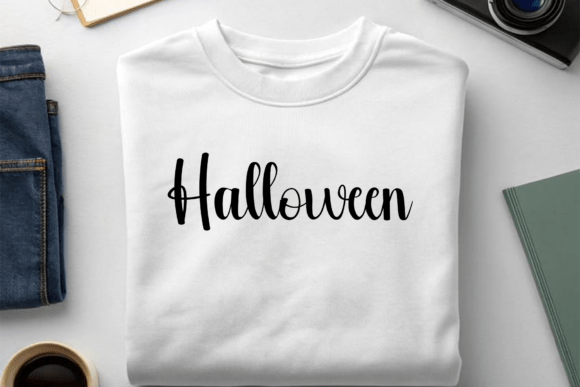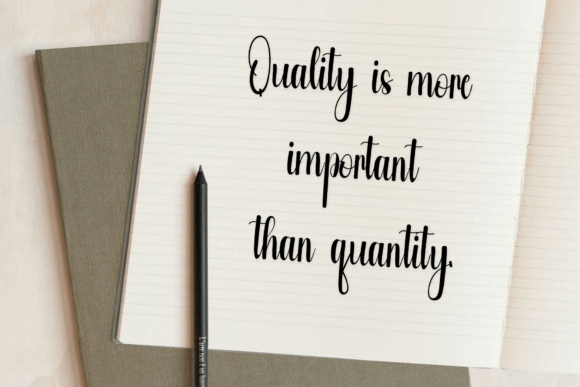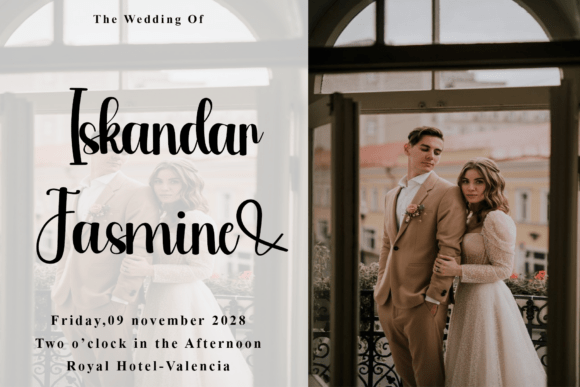
Get Ready to Deck the Halls with the Perfect Holiday Typeface
It’s that time of the year when creativity knows no bounds, and the world of design comes alive with festive magic. As you brainstorm ideas for your holiday marketing campaigns, you find yourself searching for the perfect typeface to convey the warmth and joy of the season. And then, it hits you – the Christmas Outside Font, a sophisticated and modern handwritten script that exudes elegance and sophistication.
This beautiful font is more than just a pretty face; it’s a powerful tool that can elevate your designs and make them stand out in a crowded market. With its fluid strokes and natural rhythmic flow, the Christmas Outside Font is a unique and professional choice for high-end holiday marketing, perfect for designers looking to add a personal touch to their projects.
Key Features of Christmas Outside Font
- Unique Characteristics: The Christmas Outside Font features a unique and festive design, with intricate details and ornaments that evoke a sense of holiday cheer.
- Characters and Glyphs: The font includes a wide range of characters and glyphs, including uppercase and lowercase letters, numbers, and punctuation marks, as well as special characters and symbols.
Review of “Christmas Outside Font”
Overall, I think “Christmas Outside Font” has some great qualities that make it a fun addition to holiday designs. ✨ The font’s playful and whimsical style is perfect for capturing the spirit of Christmas. ✨ The inclusion of winter-themed characters like snowflakes, presents, and pine trees adds a nice touch of festive flair. ✨ The font’s versatility makes it suitable for a wide range of applications, from social media graphics to print materials.
However, I do have some concerns about the font’s limitations. ⚠️ For one, the characters can be a bit on the thin side, which may make them difficult to read in certain contexts. ⚠️ Additionally, some of the characters may not be entirely legible, particularly at smaller font sizes. ⚠️ Furthermore, the font’s design may not be to everyone’s taste, which could limit its appeal.
Here are some specific pros and cons:
- ✨ Playful and whimsical design
- ✨ Versatile and suitable for various applications
- ✨ Includes winter-themed characters
- ⚠️ Thin characters may be difficult to read
- ⚠️ Some characters may not be legible at smaller font sizes
- ⚠️ Design may not appeal to everyone
In conclusion, while “Christmas Outside Font” has some great qualities, its limitations may prevent it from being the go-to choice for all holiday designs.